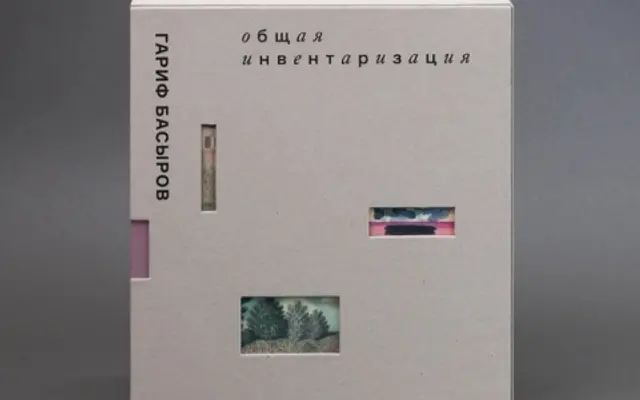
Formular Neutral
A neutral grotesque spanning seven weights with matching italics and a monospaced variant, covering Latin and Cyrillic across 72 languages.
Offering seven weights from Ultra to ExtraLight, each with a corresponding italic, Formular Neutral is a restrained grotesque intended for extended text and editorial use. A dedicated mono variant broadens its application to coding environments and tabular work. Latin and Cyrillic support across 72 languages makes it a practical choice for multilingual publishing.
Formular Neutral presents as a neutral grotesque sans-serif, a genre defined by restrained geometry and minimal personality, covering both Latin and Cyrillic scripts across 15 weights with mono and italic variants.